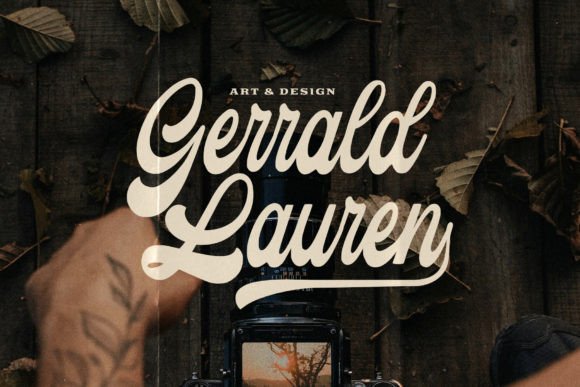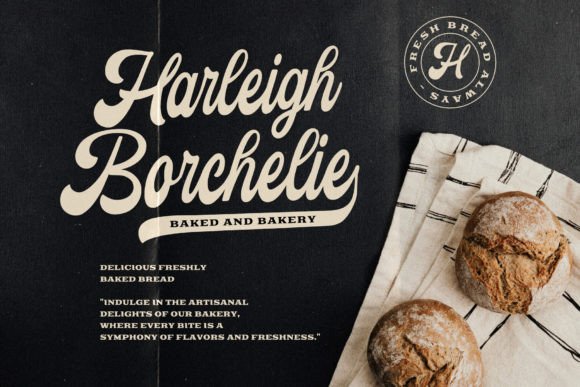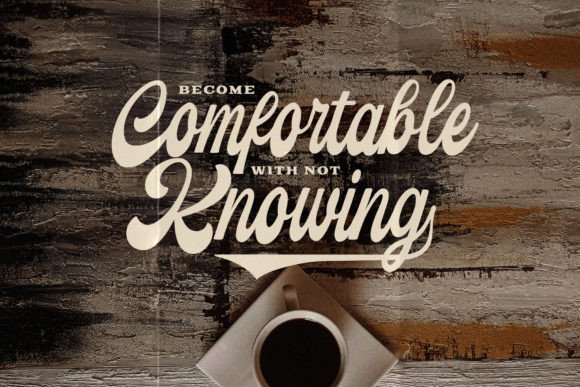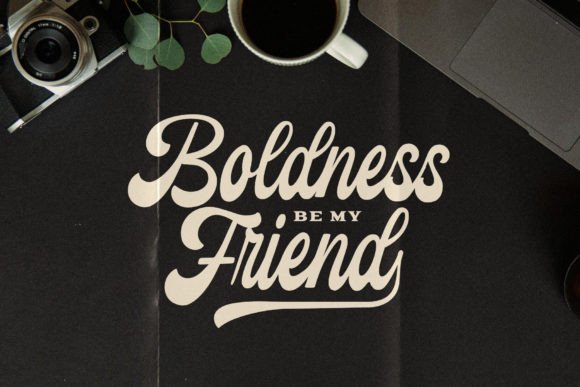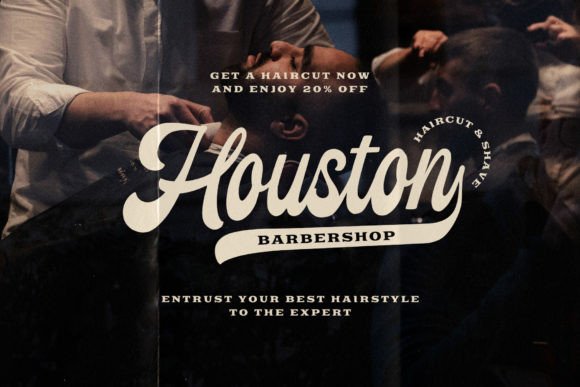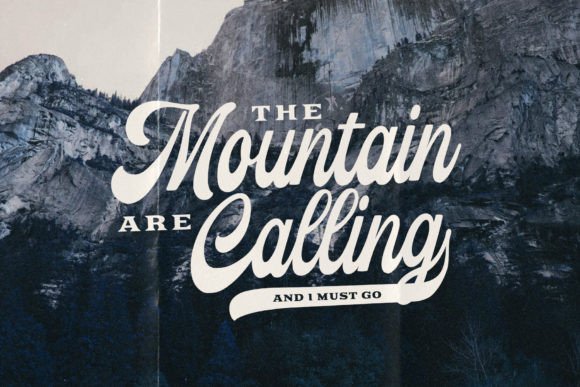
Introduction to Moswald Font
Have you ever been captivated by the elegant strokes of a handwritten note or a beautifully crafted invitation? For designers, this moment is a reminder of the power of typography in bringing a project to life. It’s in these moments that we crave a design resource that exudes timeless charm and sophistication. Enter Moswald Font, a luxurious and multifaceted script font that is the epitome of high-quality typography.
With its beautifully fluid strokes and delicately fine-tuned letterforms, Moswald Font effortlessly transports you to an era of classical calligraphy, where elegance and poise reign supreme. Whether you’re working on a creative project that requires a touch of refinement or simply need a font that can elevate your designs, Moswald Font is the perfect addition to your design arsenal. And the best part? You can download it for free, allowing you to unleash your creativity without any restrictions.
Key Features of Moswald Font
- High-quality, professional font designed for creative projects and design resources.
- Transparent background, making it perfect for use on images or videos with complex backgrounds.
- Supports a wide range of languages, including Latin, Cyrillic, and Greek alphabets.
- Comes in a single font size, ideal for use in logos, headings, and titles, with a resolution of 300 DPI.
- Unique characteristics include a modern, clean design and a wide range of stylistic sets for added flexibility.
- Perfect for designers, artists, and creatives working on various high-quality design projects.
Honest Review: Moswald Font
As a designer, I’m always on the lookout for high-quality design resources that can elevate my creative projects. Recently, I had the chance to try out the Moswald Font, and here’s my honest take on it.
- ✨ Unique and modern aesthetic that adds a touch of sophistication to any design.
- ✨ Smooth and clear typography that’s perfect for titles, headings, and body text.
- ⚠️ Limited character set, which might be a concern for designers working on projects that require extensive text editing.
- ⚠️ No transparent background option, which might limit its use in certain design scenarios.
Overall, I’m impressed with the Moswald Font’s unique design and high-quality typography. While it may have some limitations, it’s still a great addition to any designer’s toolkit, especially for creative projects that require a modern and sophisticated look. As a free download, it’s definitely worth checking out.
Moswald Font is ideal for creative projects that require a high-quality, transparent background. This font is perfect for designing logos, business cards, and other marketing materials. With its clean and modern design, Moswald Font is a valuable design resource that can elevate your projects.